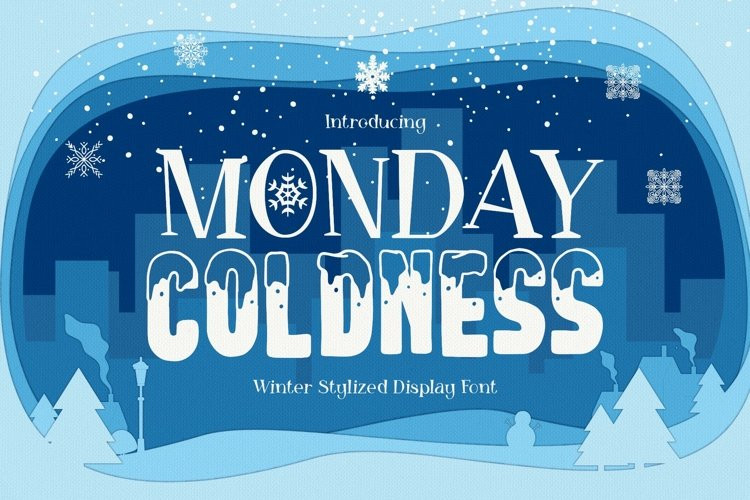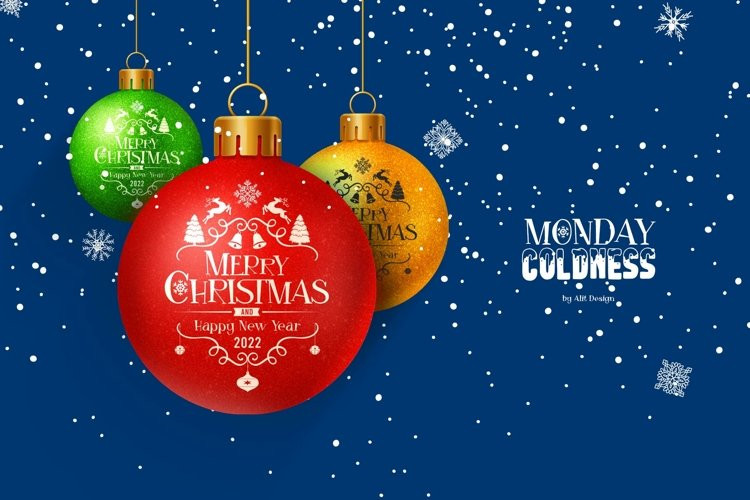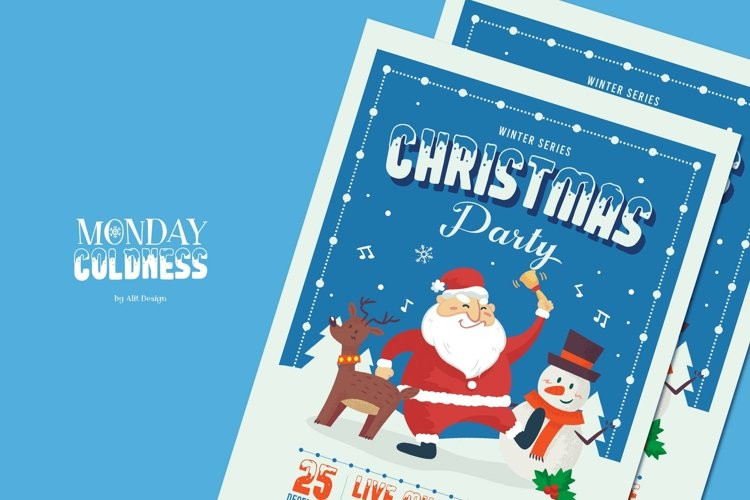
Monday Coldness Font
Introducing Monday Coldness Typeface
Monday Coldness typeface was created from the concept of the end of the year which has many events such as Christmas, New Year and winter. Monday Coldness typeface consists of 3 cool characters when combined for the year-end design concept, there is a unique and elegant Monday Coldness font, Monday Coldness cool which contains an illustration of snow on the characters and Monday Coldness snow is a unique and cool snow mandala dingbat font. as ornaments.
Can be used for the design of poster, Big sale sign, greeting card , packaging designs, New Year design and so on with the winter season concept.